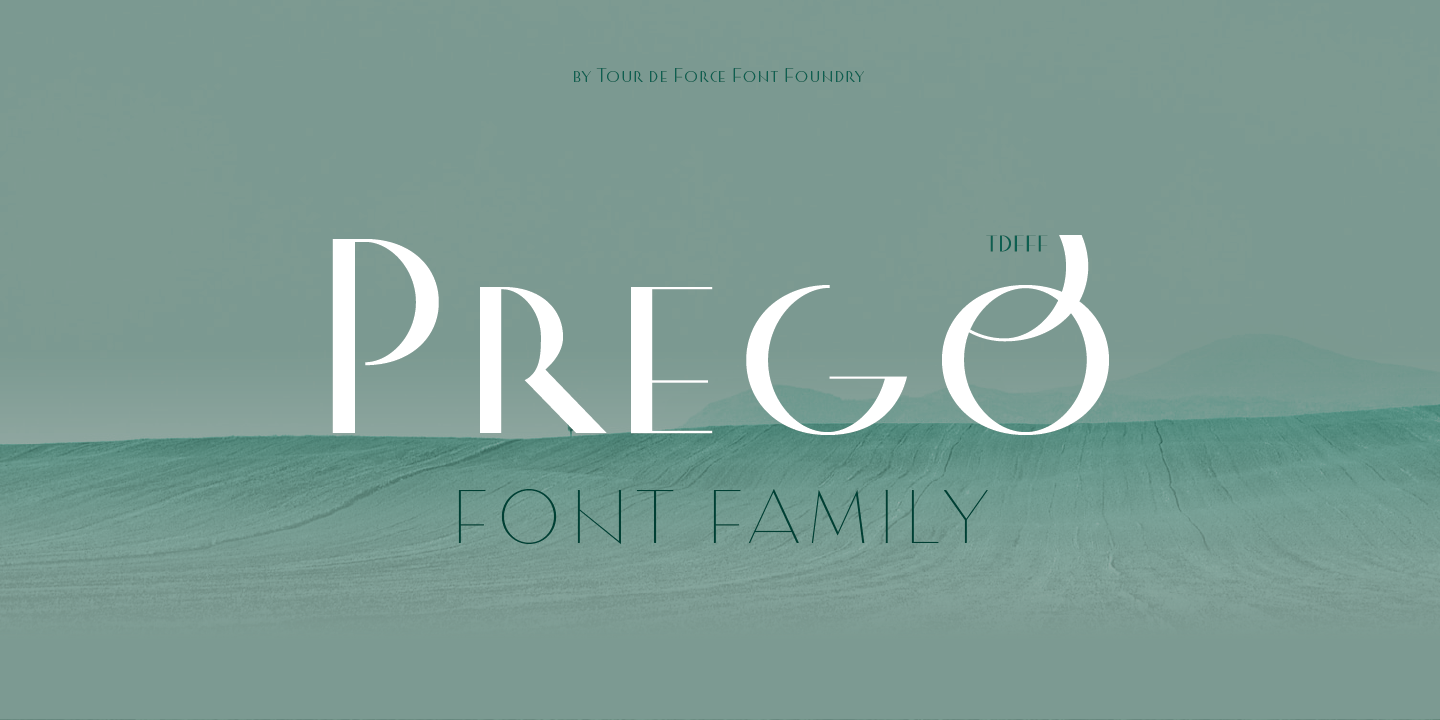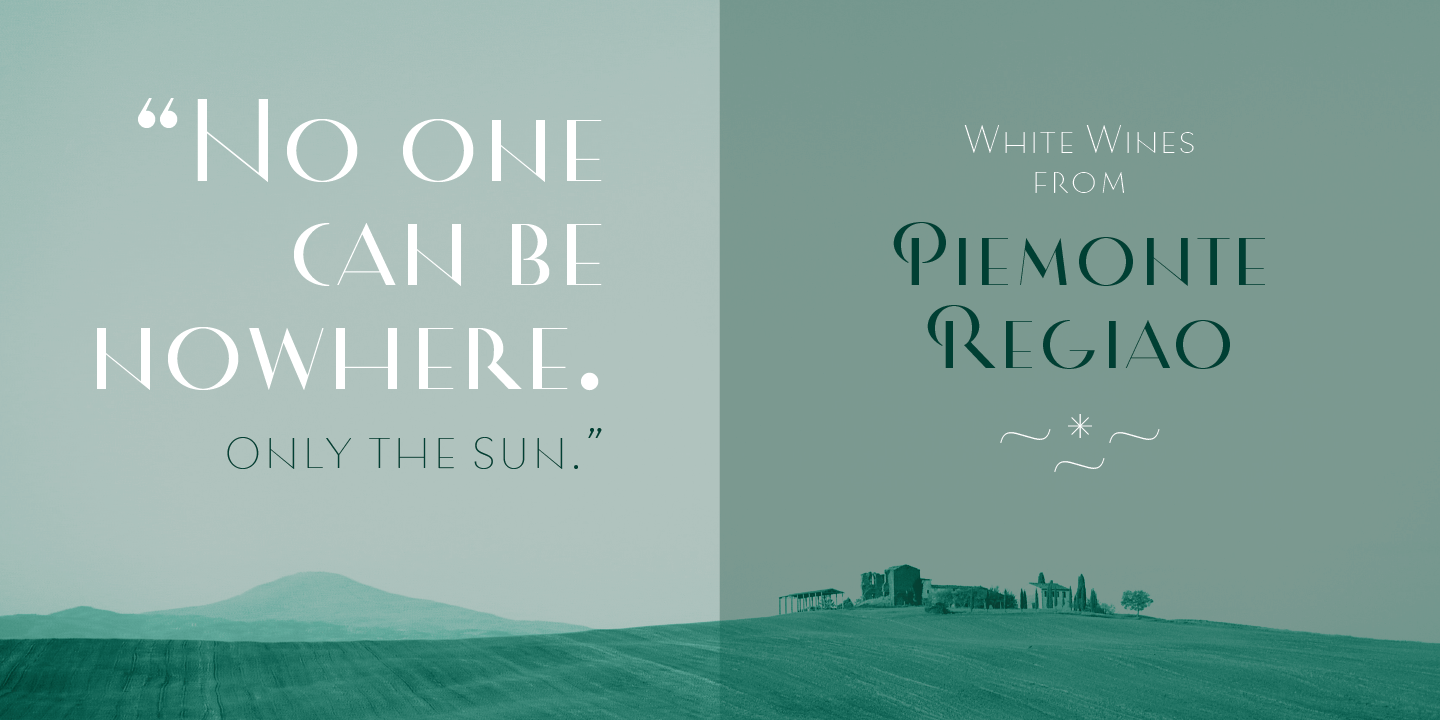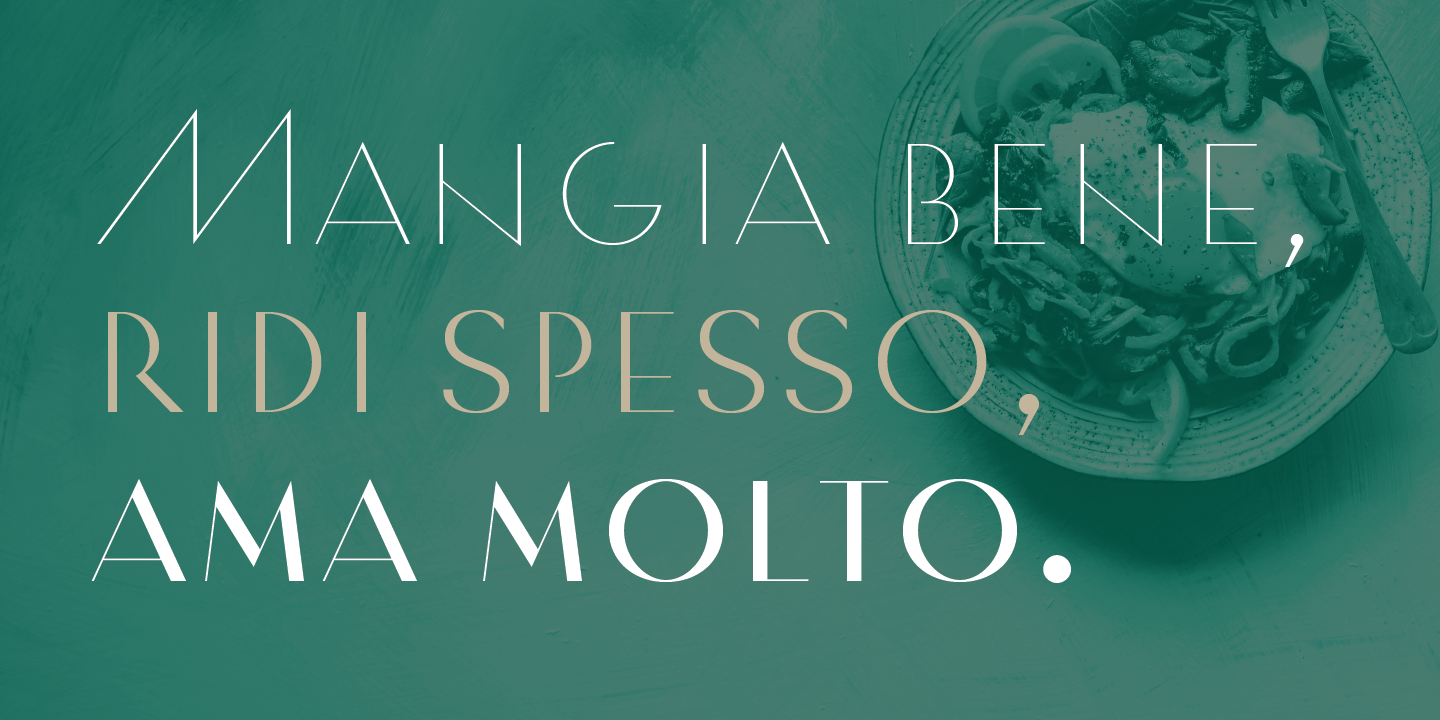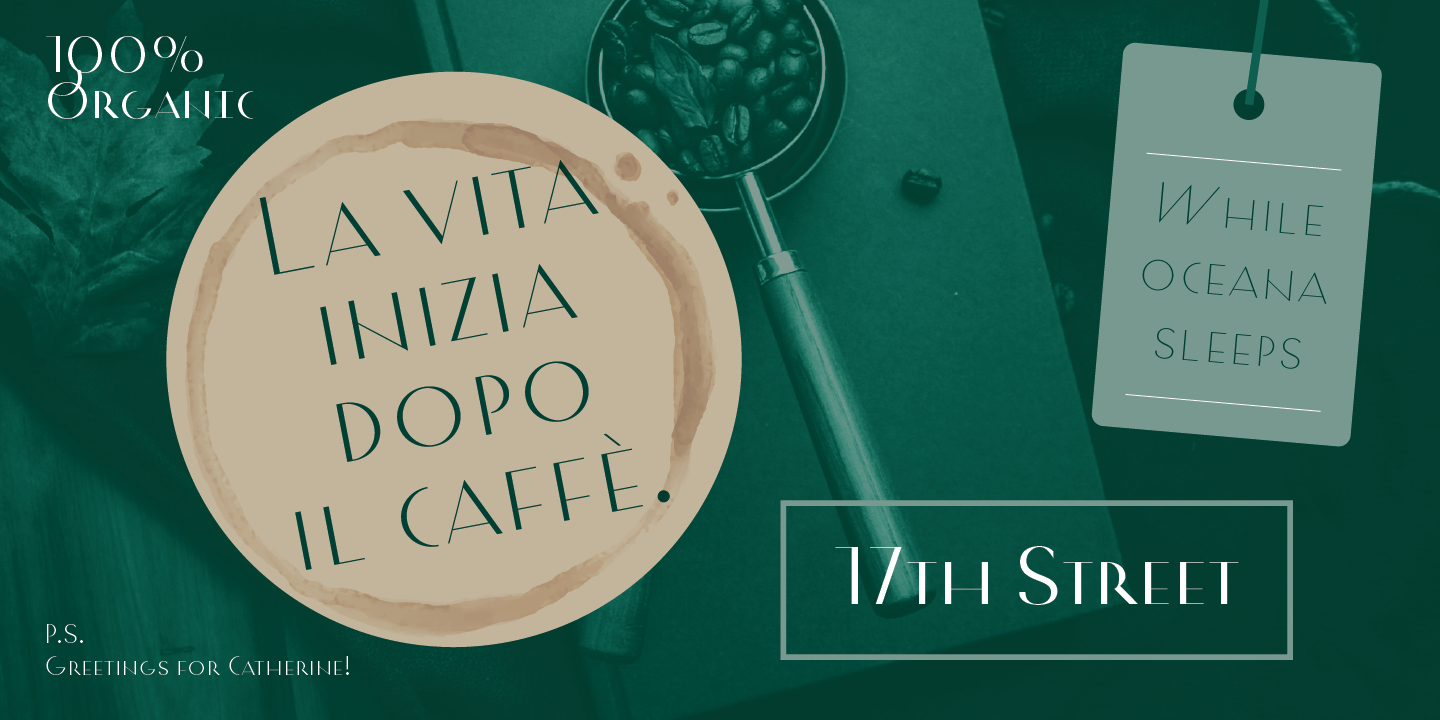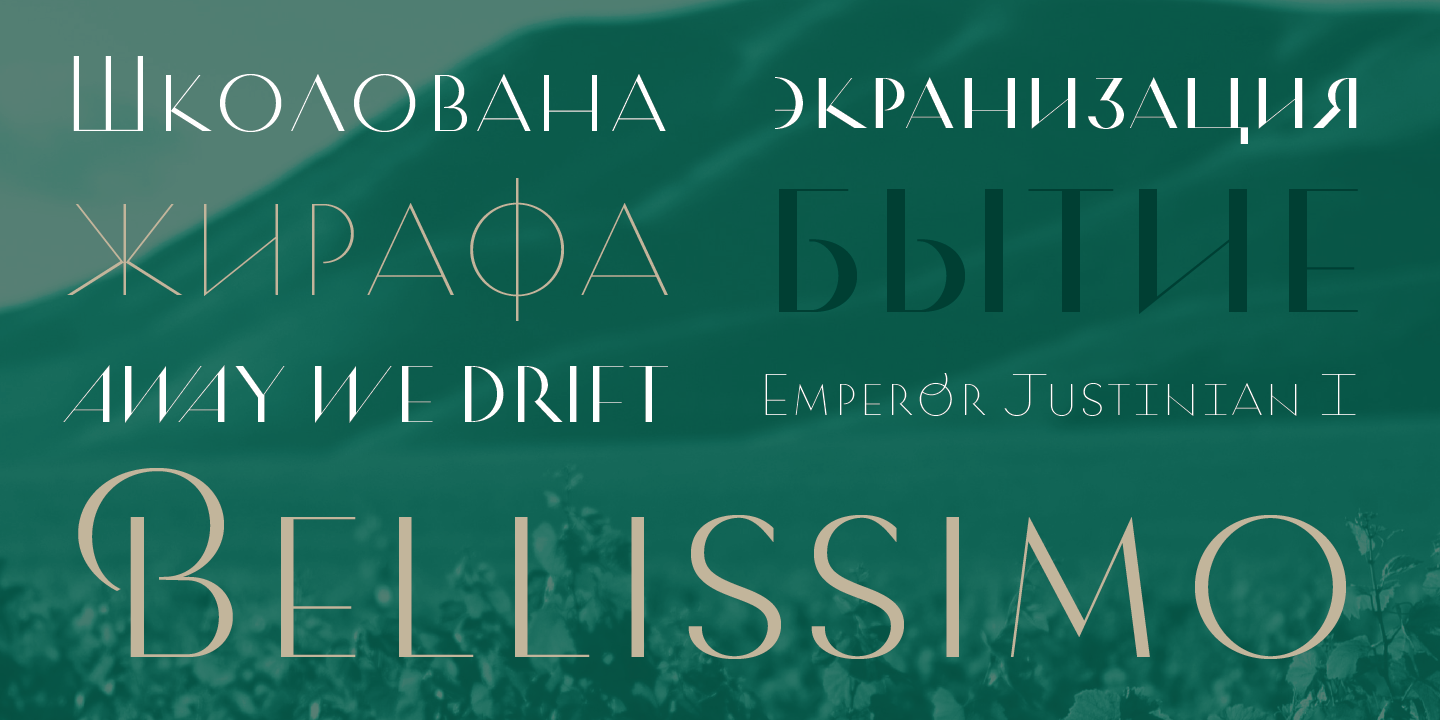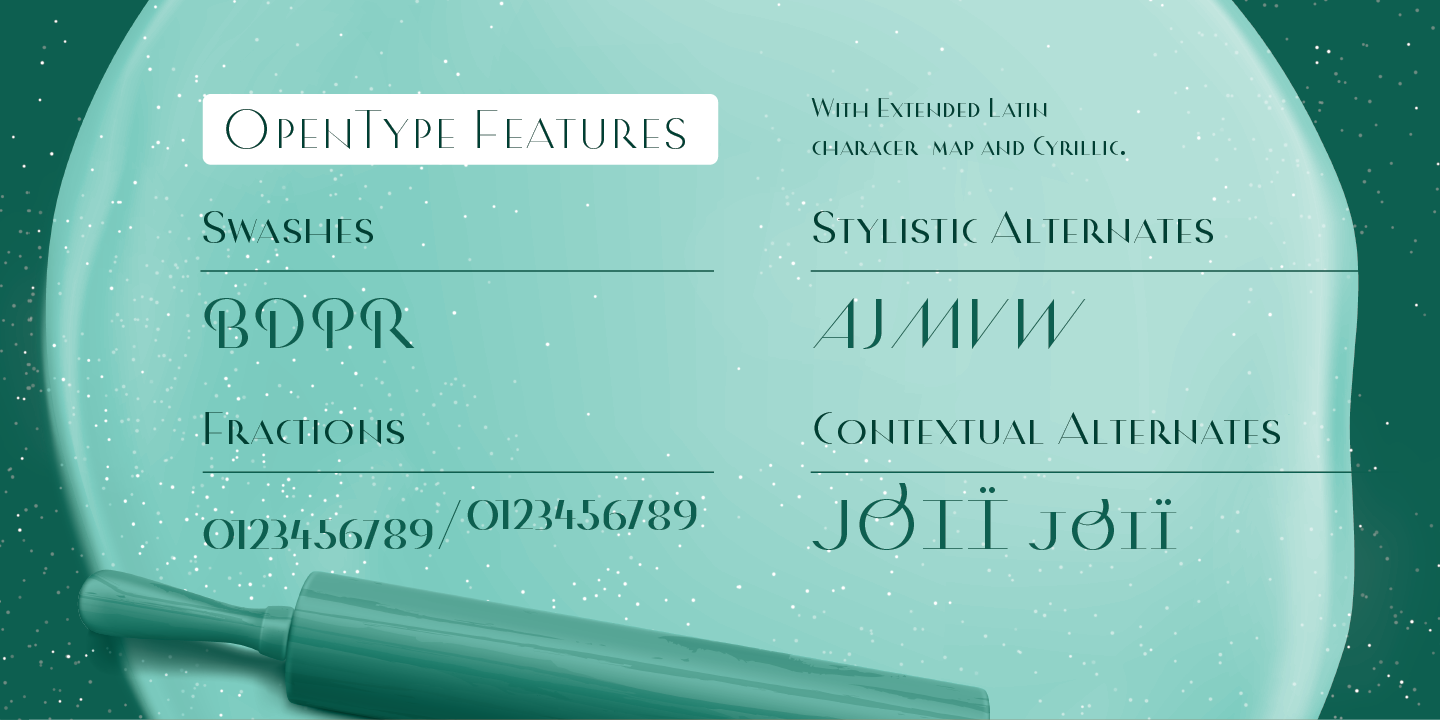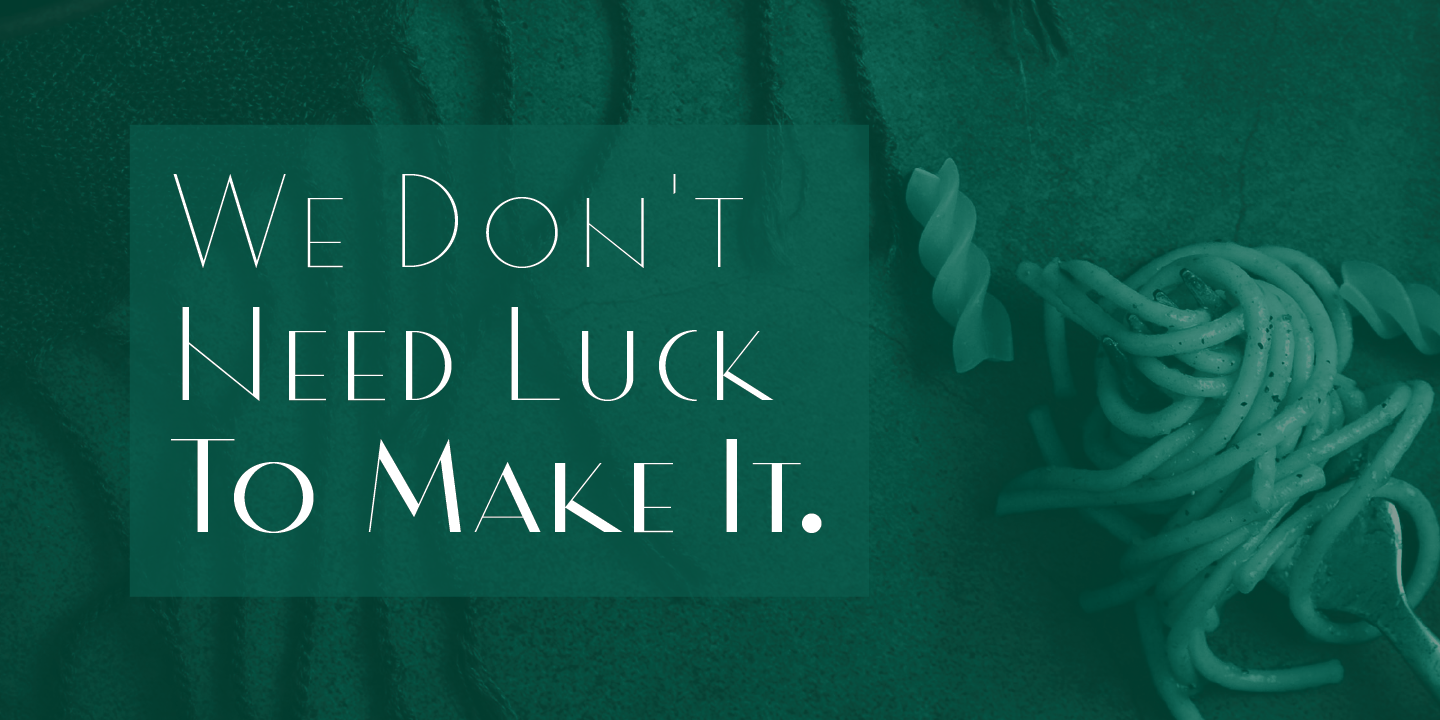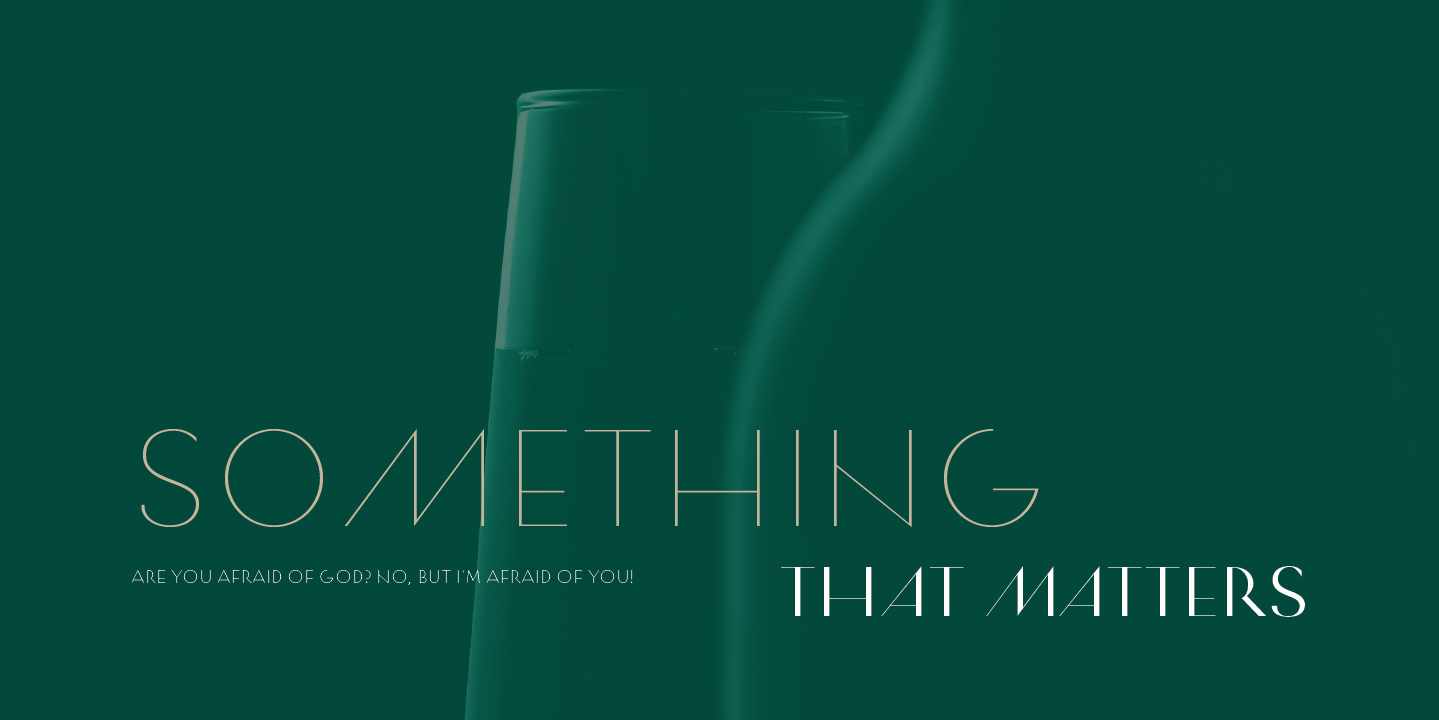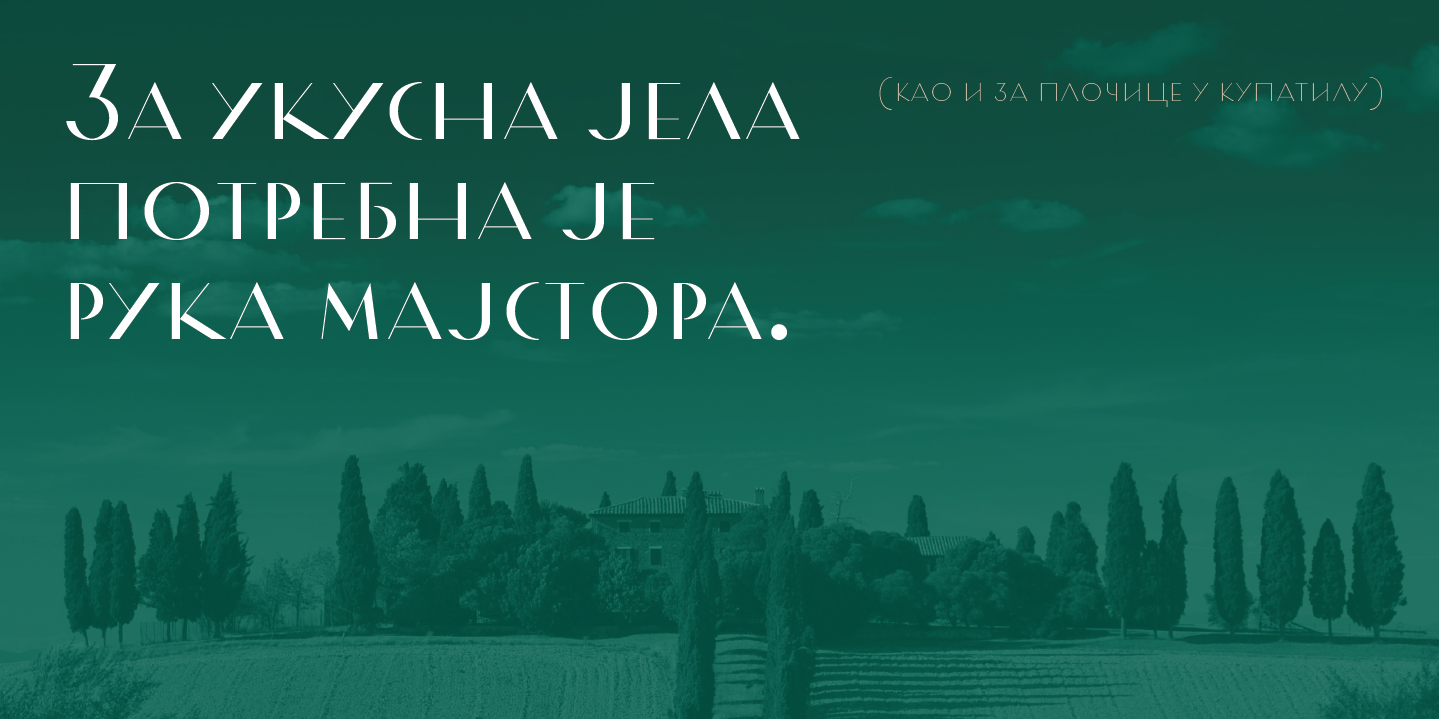
Prego is small family with a lot of charm packed in 3 weights – Light, Regular and Bold.
Prego is small family with a lot of charm packed in 3 weights – Light, Regular and Bold. High contrasting design combined with simple and elegant shapes equipped with OpenType features (Swashes, Stylistic and Contextual Alternates, Fractions). Supports extended Latin character set and Cyrillic as well.